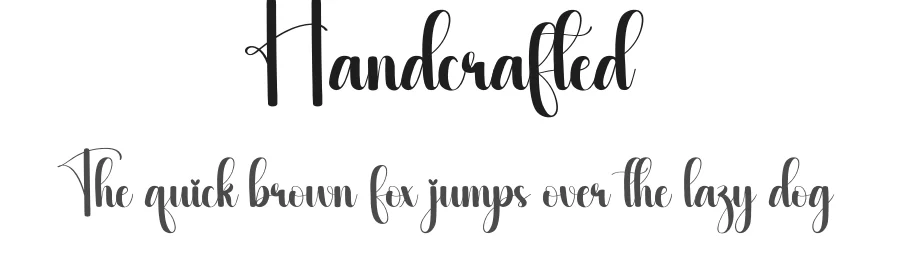
About Therapy Font
Therapy ships with 1 OpenType feature you can switch on in apps that support them (Illustrator, InDesign, Affinity, Figma, CSS font-feature-settings).
Therapy supports 211 languages.
Therapy Font is a script font that shines as a display or heading face. Pair it with a clean sans-serif or serif font for body text β the contrast creates a clear hierarchy while the two styles stay balanced and easy to read.